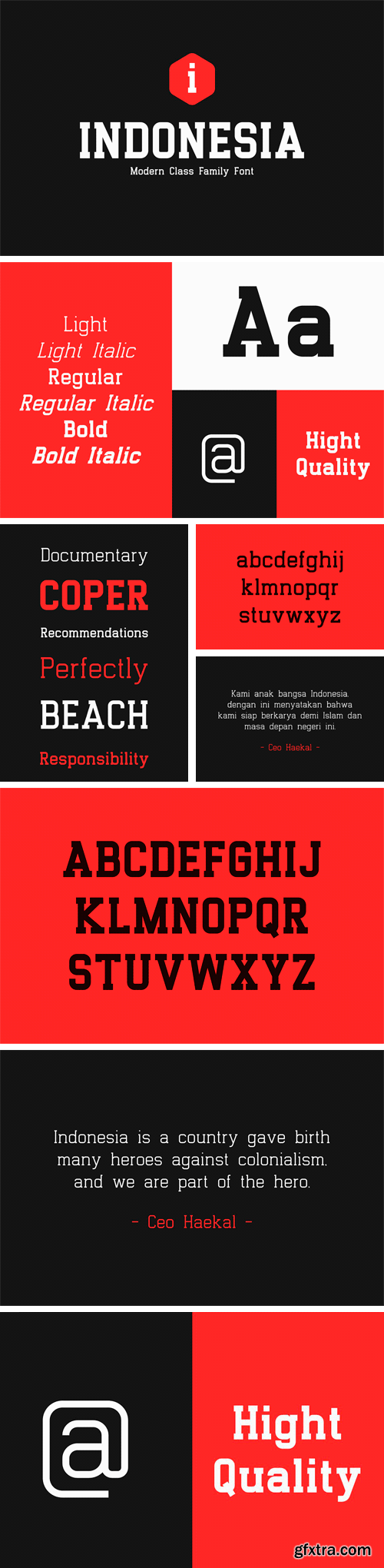
CM - Indonesia Family | Premium Font! 2130575
Introducing Indonesia Family - A clean and minimalist and awesome character! With three different weights and italic style, it's perfect for magazine layouts, invitations, headers, or even large-scale artwork.